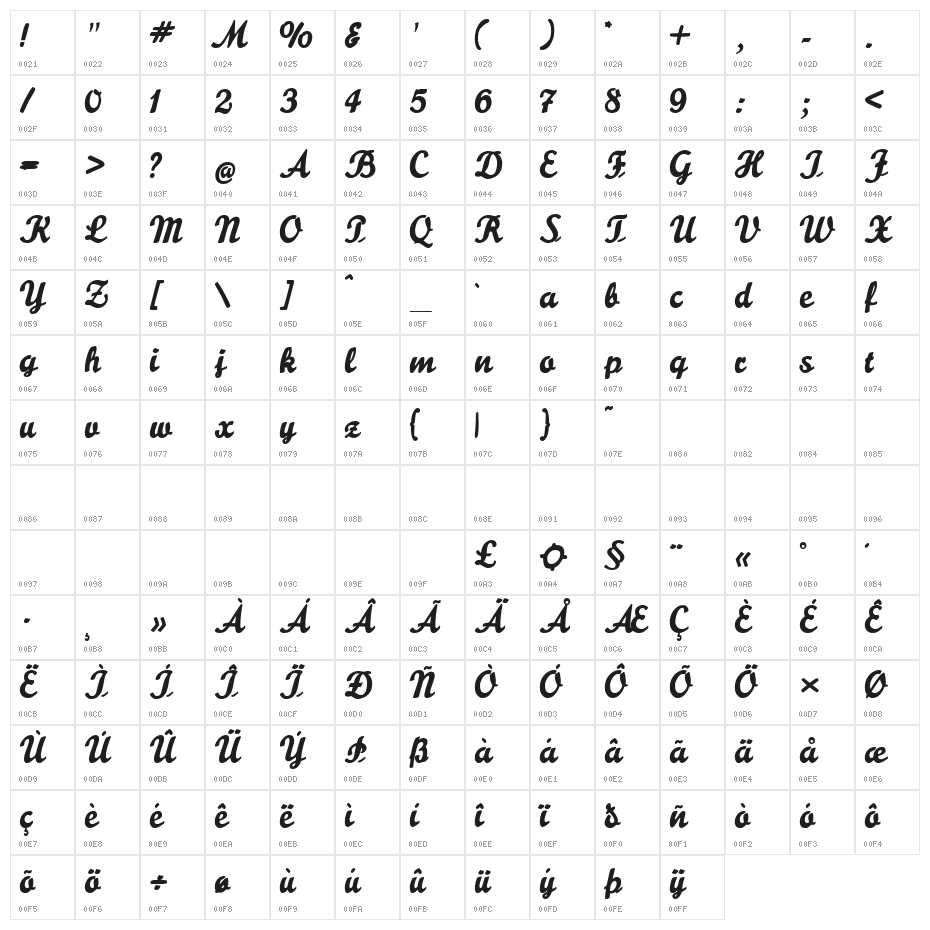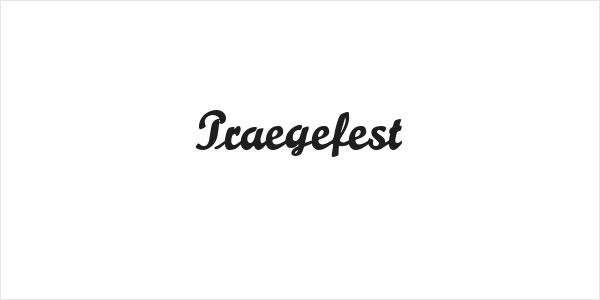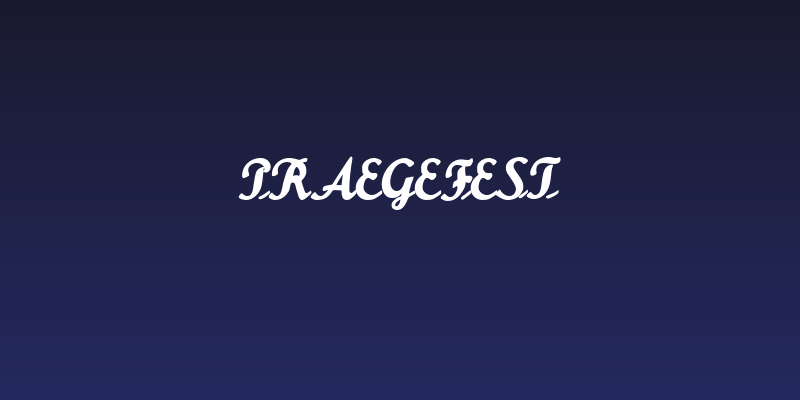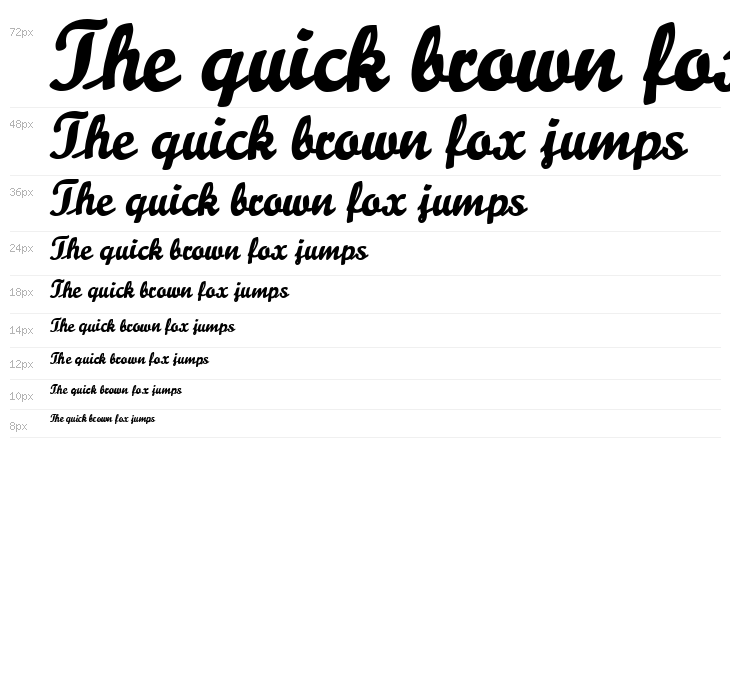
Praegefest Font
Praegefest Description
This font features a bold and flowing script style, characterized by its smooth, cursive letterforms that convey a sense of elegance and sophistication. The uppercase letters are slightly more ornate, with sweeping curves and flourishes that add a decorative touch. The lowercase letters maintain a consistent flow, enhancing readability while retaining a stylish appearance. Numbers and special characters are designed to match the overall aesthetic, ensuring a cohesive look across all text elements. The font's bold weight and medium contrast in stroke thickness make it suitable for impactful designs.
| Overall Style | Elegant, Decorative |
| Use Case | Headlines, Invitations, Logos |
| Proposed Projects | Ideal for wedding invitations, branding projects, elegant signage, and decorative headlines. |